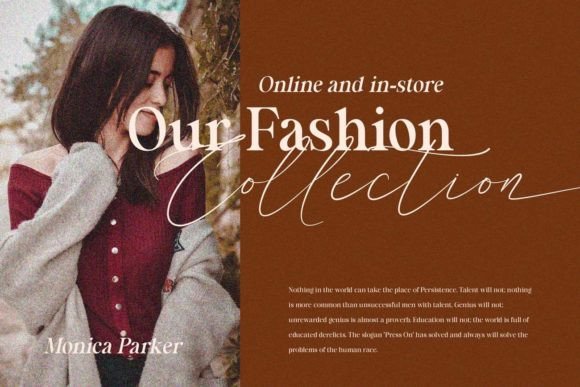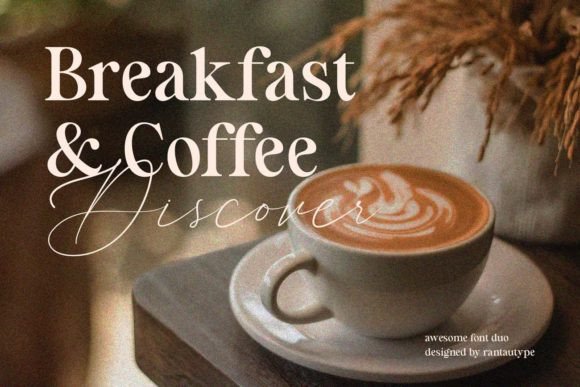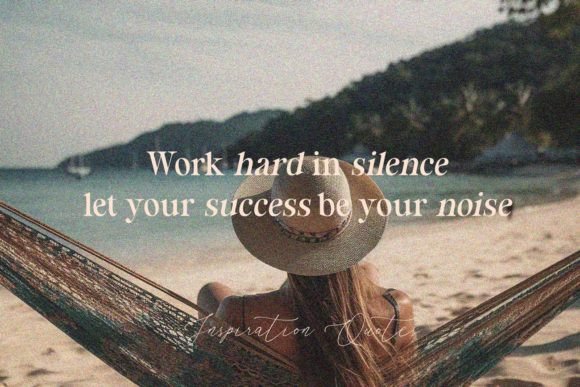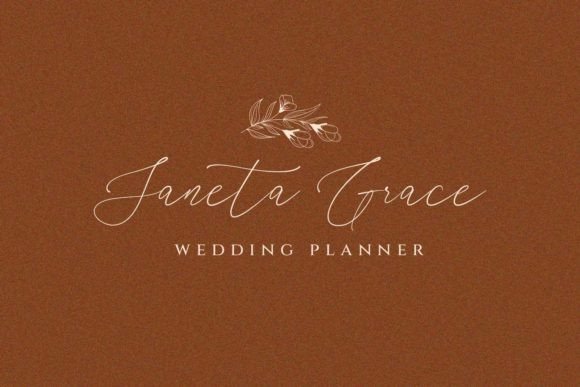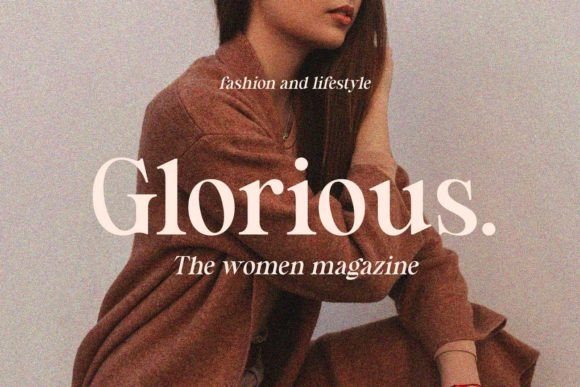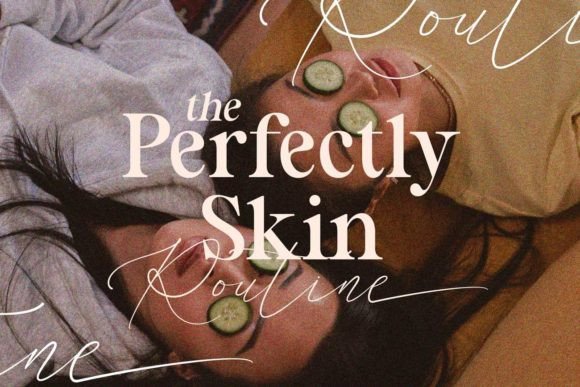
Introduction to Scarlet Bradley Font
As designers, we’ve all been there – staring at a blank canvas, waiting for the perfect font to bring our creative project to life. The struggle is real, but what if I told you that I’ve found the perfect companion for your next design endeavor? Enter the stunning Scarlet Bradley Font duo, a beautiful serif and script font that will elevate your work to the next level.
With its elegant script font and lowercase ending swash, the Scarlet Bradley Font is a game-changer for designers seeking high-quality design resources. Whether you’re creating logotypes, branding materials, or promotional ads, this versatile font has got you covered. And the best part? It’s available in three formats – Regular, Italic, and Script – making it a valuable addition to any designer’s toolkit.
Key Features of Scarlet Bradley Font
- High-quality design for creative projects, ensuring a sophisticated and elegant look.
- Unique characteristics: Elegant script, cursive, and handwritten elements, making it perfect for invitations, quotes, and other creative projects.
Honest Review: Scarlet Bradley Font
I recently had the chance to work with the Scarlet Bradley Font, and I must say it’s a real gem. As a designer, I’m always on the lookout for high-quality fonts that can elevate my creative projects.
The Scarlet Bradley Font is a beautiful, elegant script font that’s perfect for adding a touch of sophistication to your designs. One of the things that works well is its versatility – it’s great for titles, headings, and even body text. The font also comes with a transparent background, making it easy to customize and pair with other design elements.
What works well: ✨ Beautiful script font ✨ Versatile and easy to use ✨ Transparent background for customization
Some limitations: ⚠️ Limited font styles and weights ⚠️ Not ideal for bold, sans-serif designs
The Scarlet Bradley Font is a versatile design resource that can be used for a variety of creative projects, including business cards, brochures, and social media graphics. Its high quality features make it an ideal choice for designers who want to create a professional and polished look.